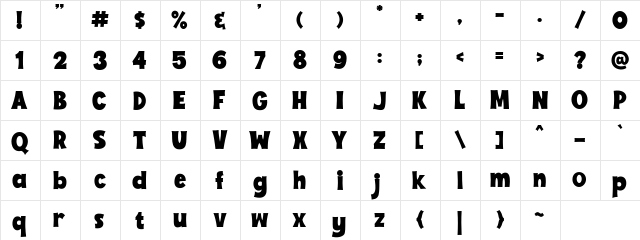
Bronson Regular
| Foundry | Sahirul Iman, semarang, alexatype |
| Designer | Sahirul Iman, semarang |
Design Context for Bronson Typeface
Bronson is a composed and adaptable typeface that performs quietly and consistently across a wide range of design contexts.